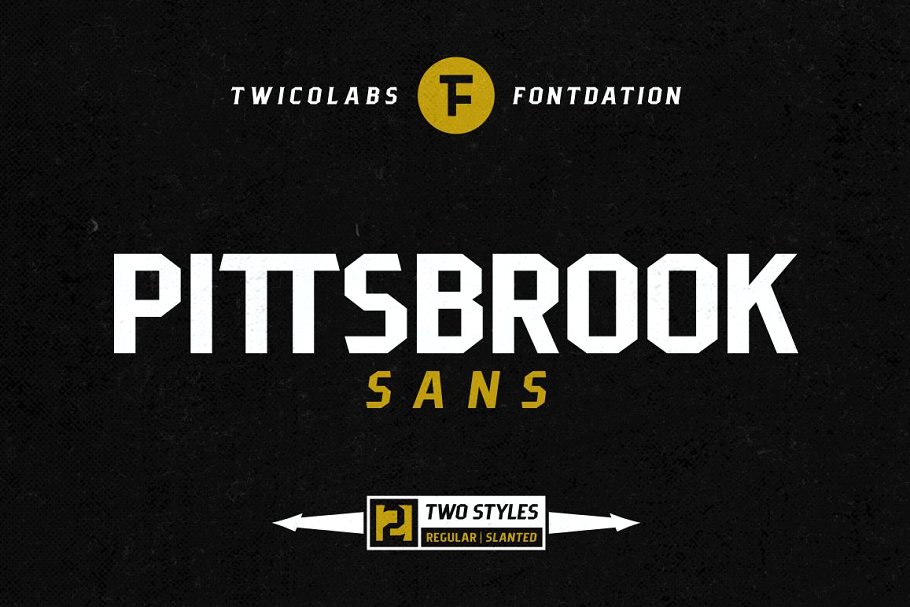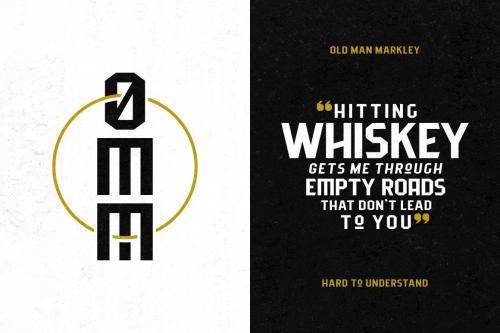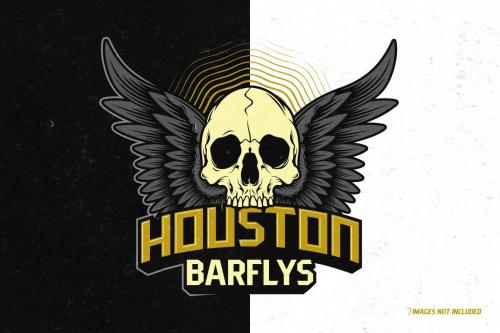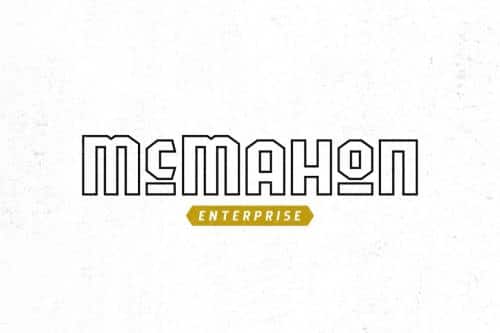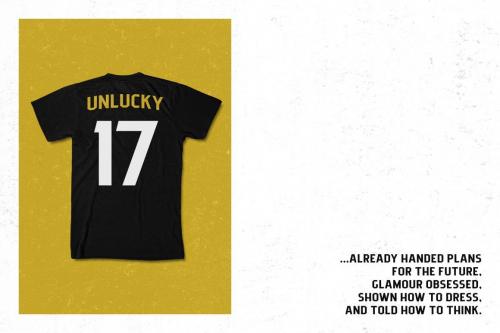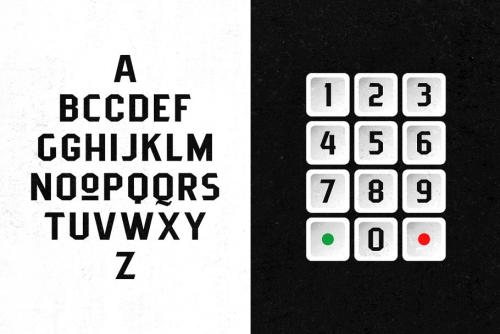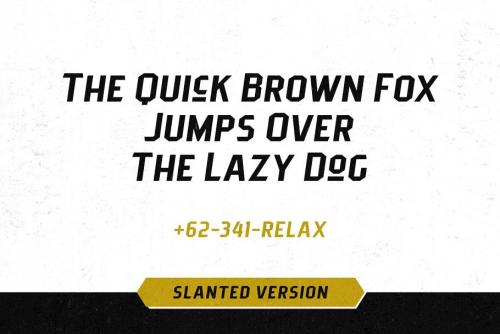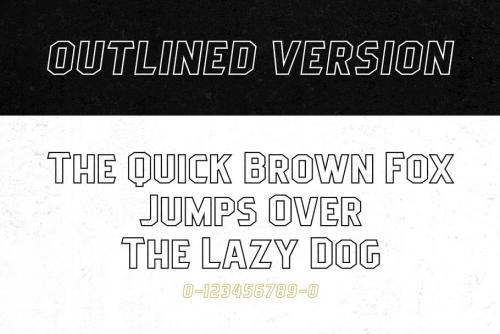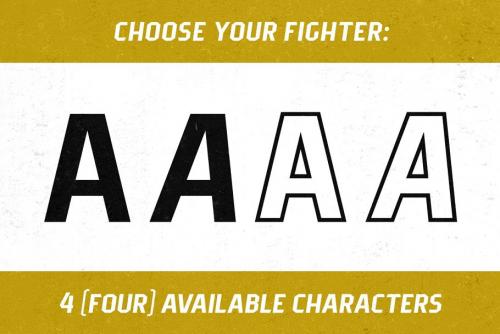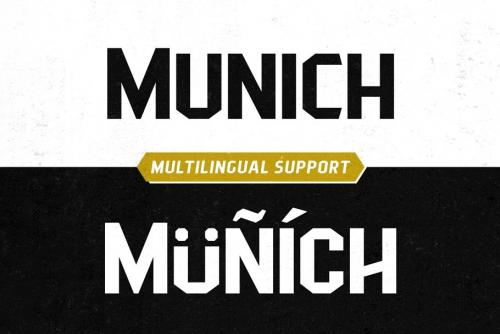
Introducing our latest typeface; Pittsbrook Sans. A classic typeface that inspired by the letters used in old advertisement and packagings.
Its rigid shape gives you strong, sharp and blocky feelings, no curves were harmed in the making of this typeface. Packed with 400+ consistently mouse-crafted characters, we spent a lot of attention to every details.
Suits best for any classic/vintage design project, such as E-Sport logo, liquor/food label, packaging, headline, space-filler, logotype, typographic quote writings, etc.